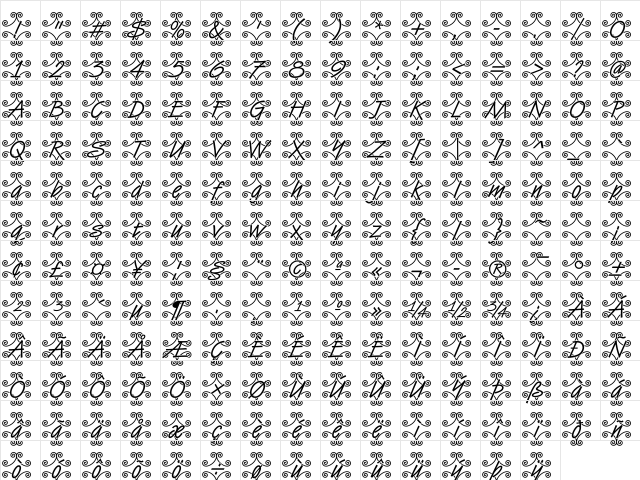
VanDijk46 Becker Regular Font Preview
VanDijk46 Becker Regular
VanDijk46 Becker Regular Font Details
Design Context for VanDijk46 Becker Typeface
VanDijk46 Becker is a composed and adaptable typeface that performs quietly and consistently across a wide range of design contexts.